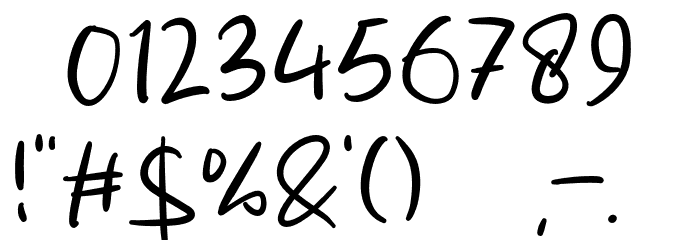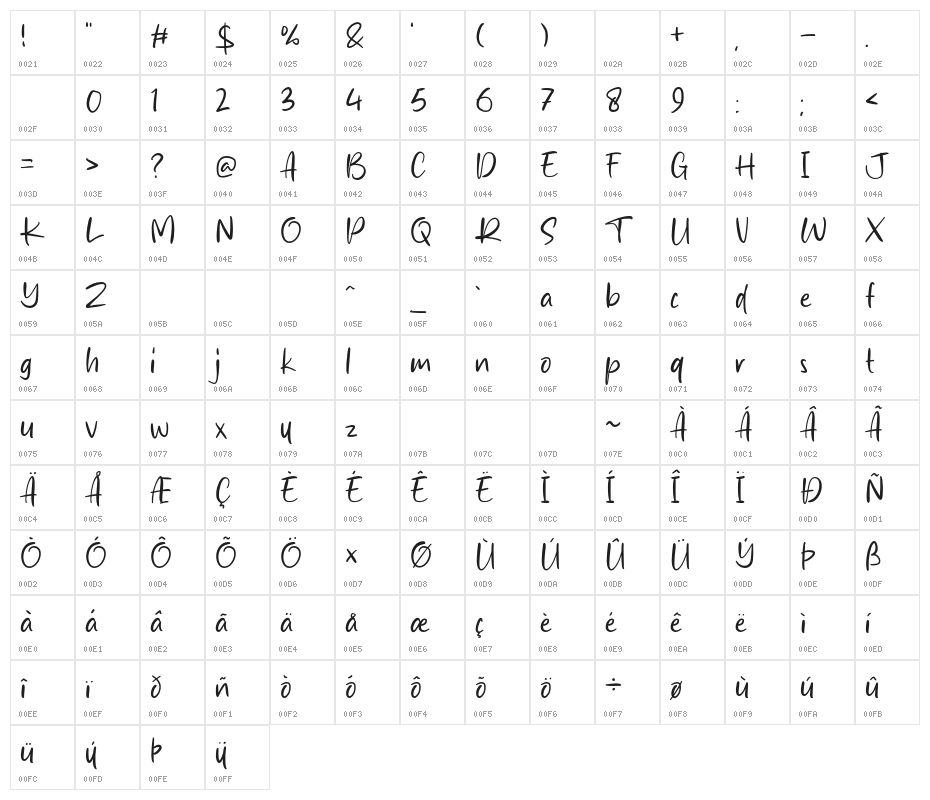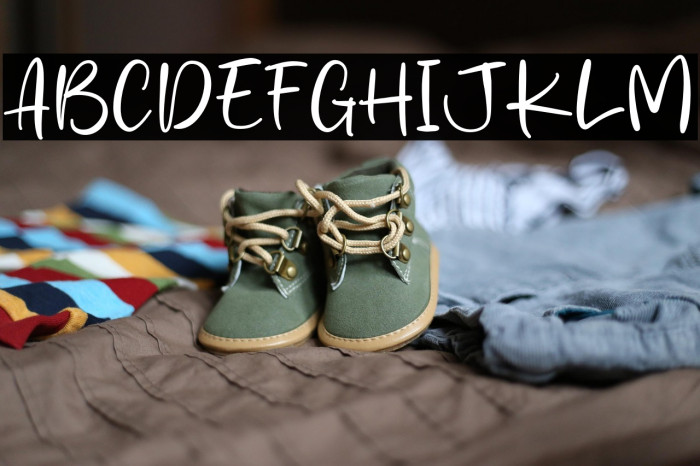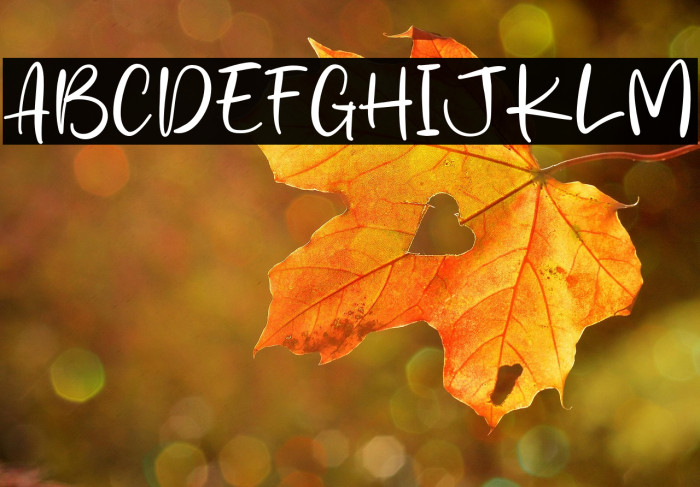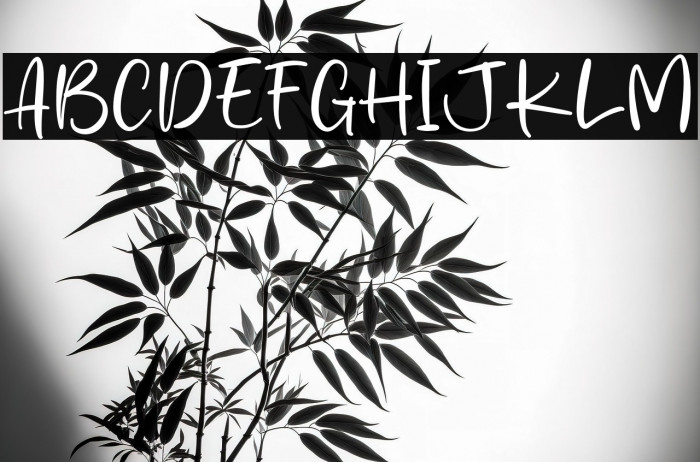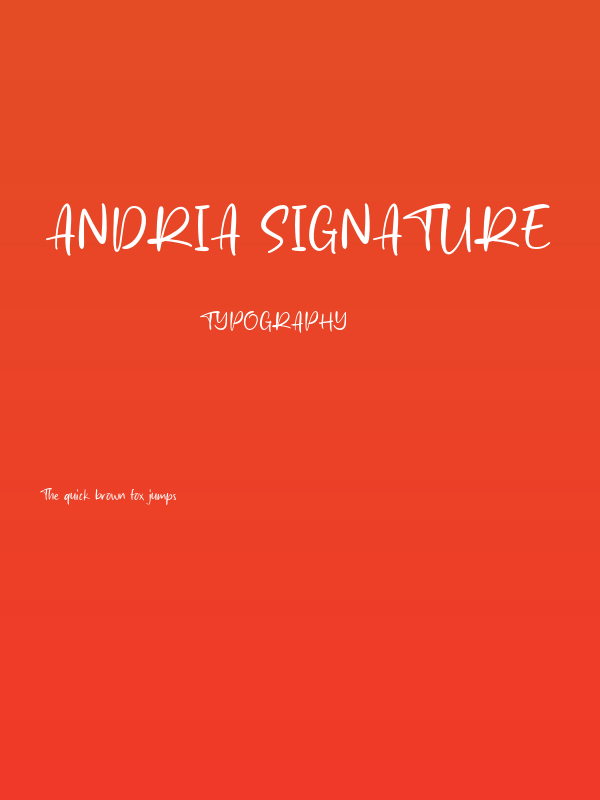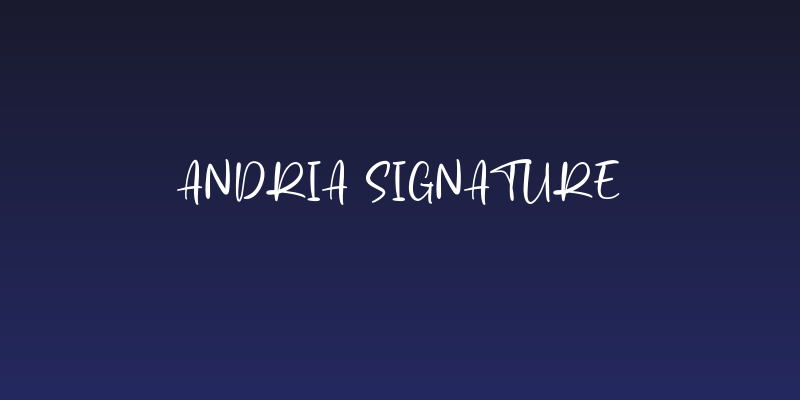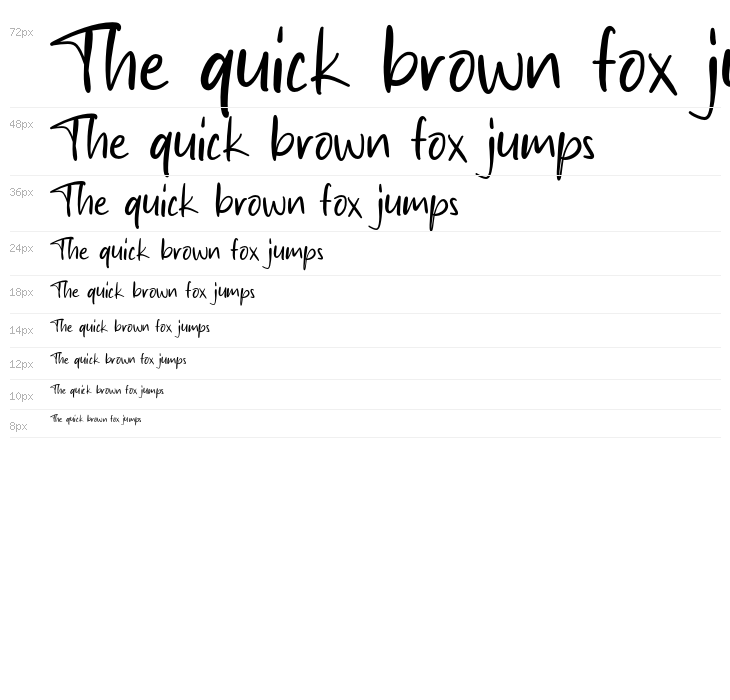
Andria Signature Font
Andria Signature Description
This font exudes a casual, handwritten style with a smooth and flowing appearance. The letters are slightly slanted, giving it a dynamic and lively feel. The strokes are consistent in width, providing a uniform look across all characters. The uppercase letters are bold and prominent, while the lowercase letters maintain a more relaxed and approachable demeanor. The numbers are clear and easily readable, matching the overall aesthetic of the alphabet. Special characters are well-integrated, maintaining the same fluidity and style as the letters and numbers. This font is perfect for projects that require a personal touch, such as invitations, greeting cards, or branding materials.
Overall StyleCasual, Personal
Use CaseHeadlines, Logos, Invitations
Proposed ProjectsIdeal for invitations, greeting cards, personal branding, and creative projects.